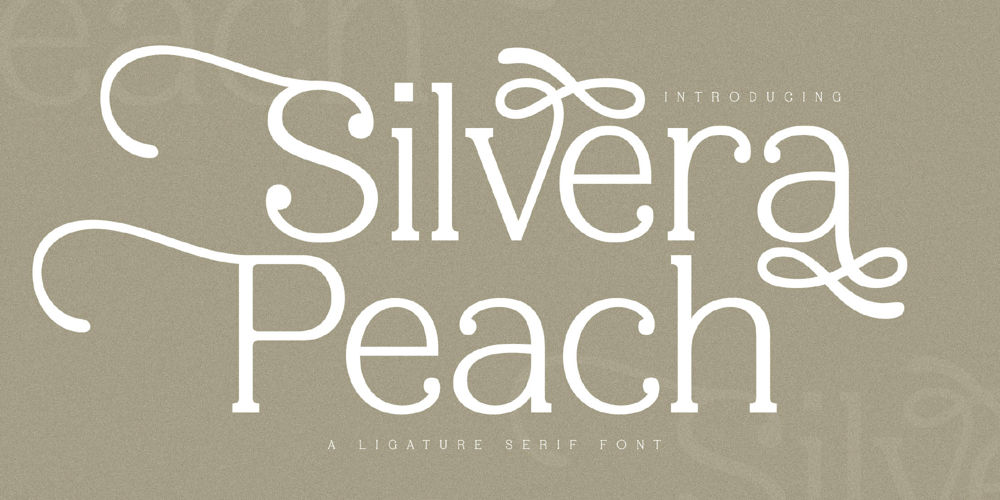
Silvera Peach Font Family was designed by Heru Utama Putra and published by Letterena Studios. Silvera Peach contains 2 styles and family package options. Silvera Peach is a modern and classic serif typeface that has its own unique style and modern look.This typeface is perfect for an elegant and luxurious logo, book or movie title design, fashion brand, magazine, clothes, lettering, quotes, and so much more.